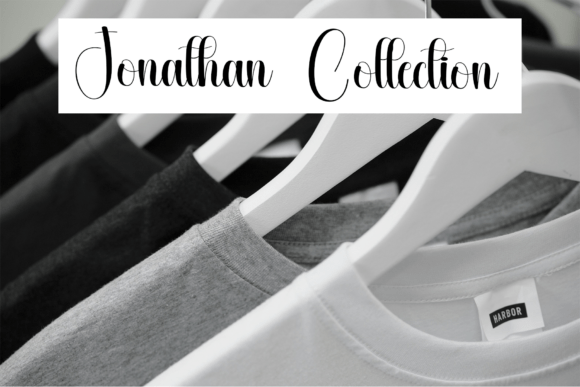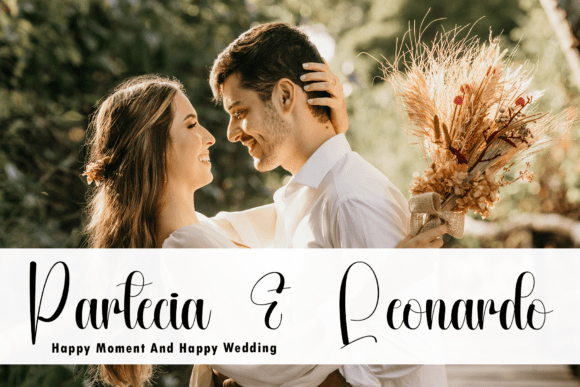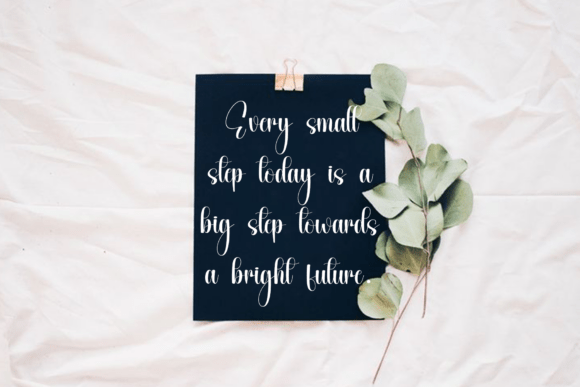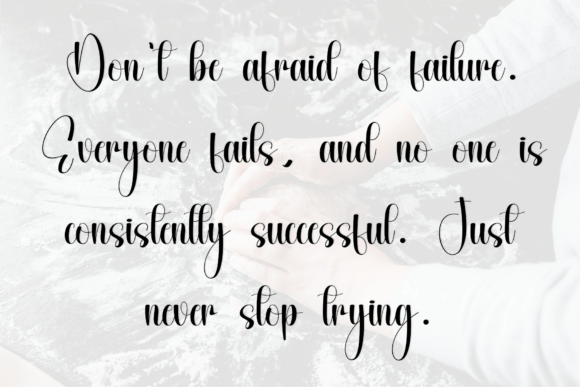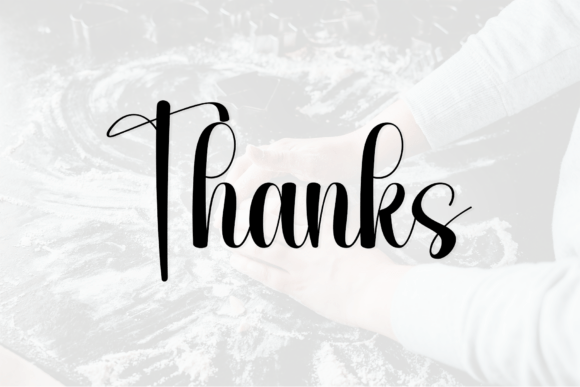
Introducing Handwork Font: Elevate Your Designs with Elegance and Sophistication
In the world of typography, a well-crafted font can make all the difference in elevating your design to new heights. For designers and crafters seeking a modern, sophisticated typeface, Handwork Font is an excellent choice. This elegant and fluid handwritten script font is perfect for luxury wedding stationery, intimate event branding, high-end editorial signatures, and sophisticated lifestyle photography overlays.
The Essence of Handwork Font
Handwork Font embodies the perfect blend of modern sophistication and classic elegance. Its fluid, handwritten script strokes exude a sense of refinement and luxury, making it an ideal choice for designs that require a touch of high-end style. Whether you’re creating wedding invitations, branding materials, or editorial content, Handwork Font is sure to impress.
Key Features of Handwork Font
- Elegant and Fluid Strokes: Handwork Font boasts smooth, connected strokes that create a sense of fluidity and movement.
- Modern Sophistication: This font’s modern design makes it perfect for contemporary designs that require a touch of sophistication.
- High-End Editorial Use: Handwork Font is suitable for high-end editorial content, such as magazine articles, blog posts, and book titles.
- Luxury Wedding Stationery: This font is ideal for luxury wedding stationery, including invitations, save-the-dates, and wedding programs.
- Intimate Event Branding: Handwork Font is perfect for intimate event branding, such as baby showers, bridal showers, and corporate events.
Design Applications for Handwork Font
Handwork Font’s versatility makes it suitable for a wide range of design applications. Here are some ideas to get you started:
- Luxury Wedding Stationery: Use Handwork Font to create stunning wedding invitations, save-the-dates, and wedding programs.
- Intimate Event Branding: Apply Handwork Font to branding materials for baby showers, bridal showers, and corporate events.
- High-End Editorial Signatures: Add a touch of sophistication to your editorial content with Handwork Font.
- Lifestyle Photography Overlays: Use Handwork Font to create elegant overlays for lifestyle photography, such as quotes, captions, and titles.
Why Choose Handwork Font?
With so many fonts available, why choose Handwork Font? Here are a few compelling reasons:
- Unique and Elegant Design: Handwork Font’s unique design sets it apart from other fonts, making it perfect for designers seeking a distinctive look.
- High-Quality Typography: This font is crafted with attention to detail, ensuring high-quality typography that will elevate your designs.
- Versatility: Handwork Font is suitable for a wide range of design applications, making it a valuable addition to your font library.
Tips for Using Handwork Font
To get the most out of Handwork Font, here are some tips to keep in mind:
- Pair with Neutral Colors: Handwork Font pairs well with neutral colors, such as black, white, and gray.
- Experiment with Font Sizes: Try varying font sizes to create visual interest and hierarchy in your designs.
- Add Decorative Elements: Consider adding decorative elements, such as illustrations or graphics, to enhance your designs.
In conclusion, Handwork Font is an elegant and sophisticated handwritten script font that is perfect for designers and crafters seeking a modern, high-end typeface. With its fluid strokes, elegant design, and versatility, this font is suitable for a wide range of design applications. Whether you’re creating luxury wedding stationery, intimate event branding, high-end editorial signatures, or sophisticated lifestyle photography overlays, Handwork Font is sure to elevate your designs to new heights.